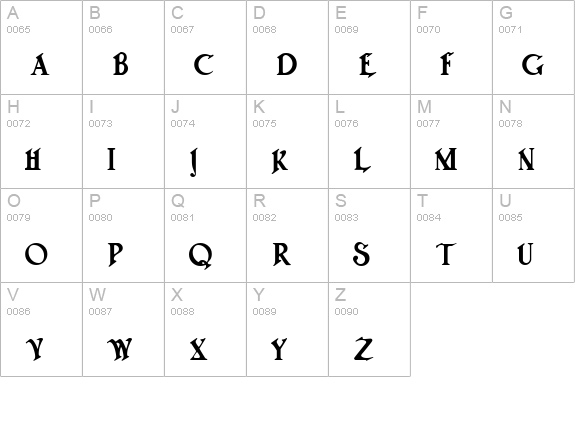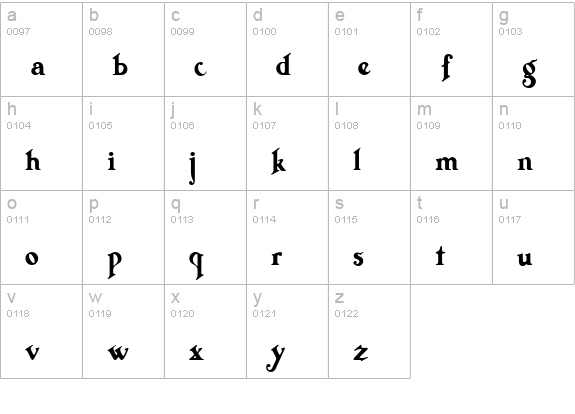
Trifles Regular is the standard, neutral variant in the Trifles typeface family \xE2\x80\x94 well suited to general body text, paragraphs, and standard typographic work.
Trifles Regular font is a stylish and versatile typeface that brings a touch of elegance to any design project. With its clean lines and balanced proportions, this font is perfect for both headers and body text. Whether you're designing a logo, creating a poster, or crafting a wedding invitation, Trifles Regular font will add a sense of sophistication to your work. One of the best features of Trifles Regular font is that it is freely available to download at FontsMarket.com. This means that you can start using this amazing font in your projects without any cost or hassle. Whether you're a professional designer or a hobbyist, having access to high-quality fonts for free can make a huge difference in your creative endeavors. Trifles Regular font offers a wide range of characters, including uppercase and lowercase letters, numbers, punctuation marks, and special symbols. The font's versatility allows it to be used in various contexts, from print to digital media. Its legibility and timeless aesthetic make it suitable for a variety of design styles, from classic to modern. With Trifles Regular font, you can effortlessly create stunning typography that captures attention and conveys your message effectively. Its clean and crisp appearance ensures that your text stands out, while its elegant curves and refined details add a touch of sophistication to your designs. Whether you're working on a branding project, a website design, or a personal project, Trifles Regular font will elevate your work to the next level. Download it for free at FontsMarket.com and unleash your creativity with this remarkable typeface.